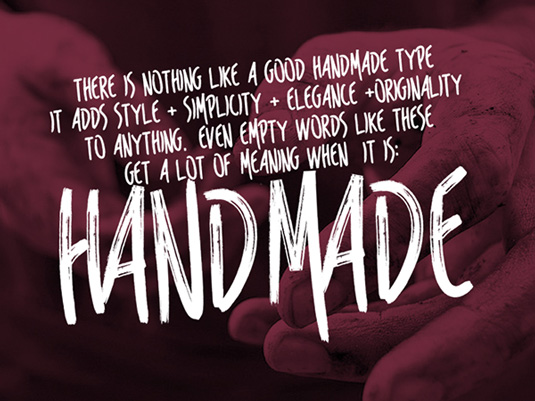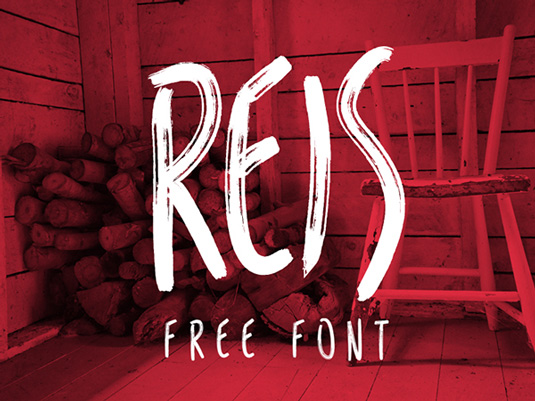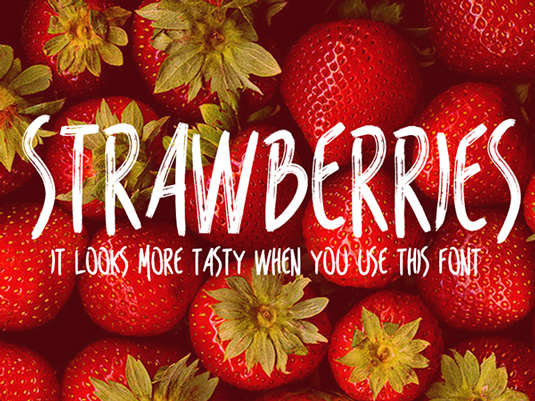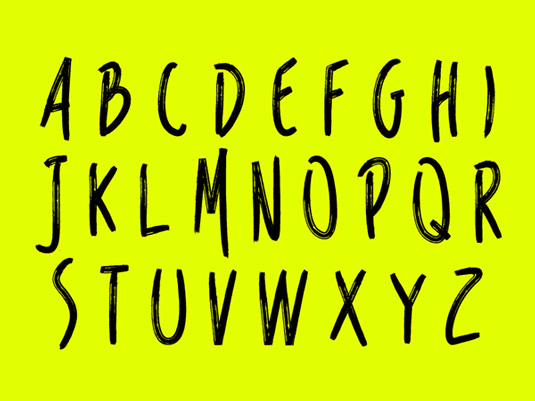
Font of the day: Reis
Every day we showcase the best fonts on the web. Today it's Reis by Marcelo Reis Melo, which is totally free to download.
Reis by Marcelo Reis Melo
Today's typeface of choice is this cool, handwritten design Reis by creative Marcelo Reis Melo. Great for posters, logos and much more, Reis is available free for personal and commercial use, with donations to the author, as always, appreciated.